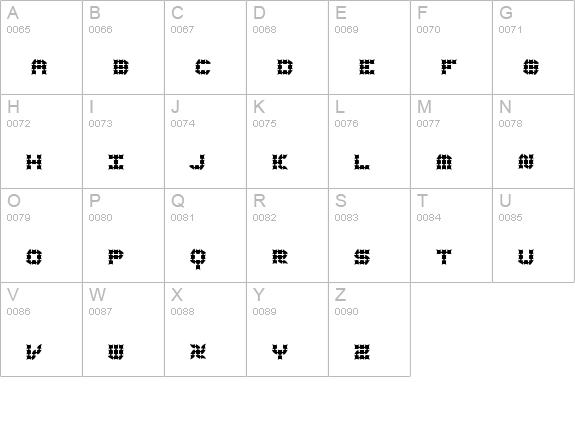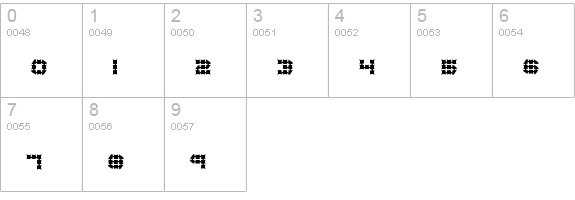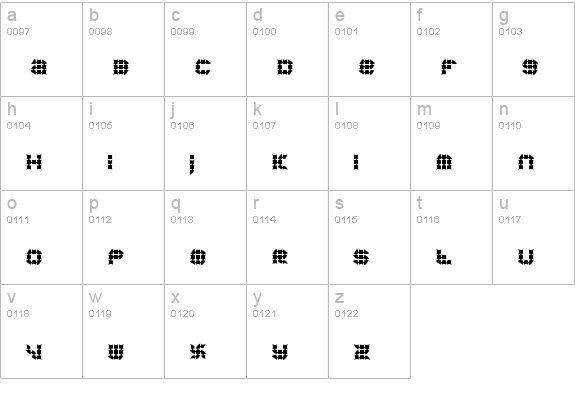
Konector Eerie BRK font is a unique and eye-catching typeface that exudes an eerie and mysterious vibe. With its bold and intricate design, this font is perfect for adding a touch of intrigue to your projects. The sharp edges and geometric shapes give it a modern and edgy feel, making it ideal for a variety of creative applications. Whether you're working on a Halloween-themed project, a horror movie poster, or just want to add a spooky twist to your designs, Konector Eerie BRK font is sure to make a statement. The font's distinctive style will grab the attention of viewers and help your work stand out. What's even better is that Konector Eerie BRK font is free to download at FontsMarket.com. You can easily access this striking typeface and incorporate it into your projects without any cost. Don't miss out on the opportunity to enhance your designs with this captivating font today!